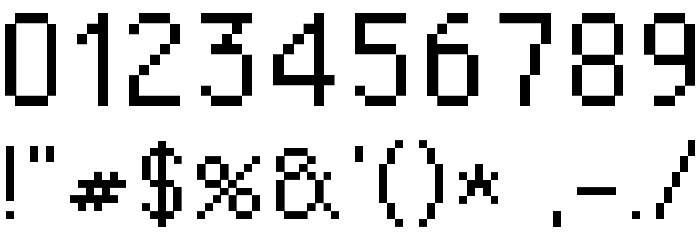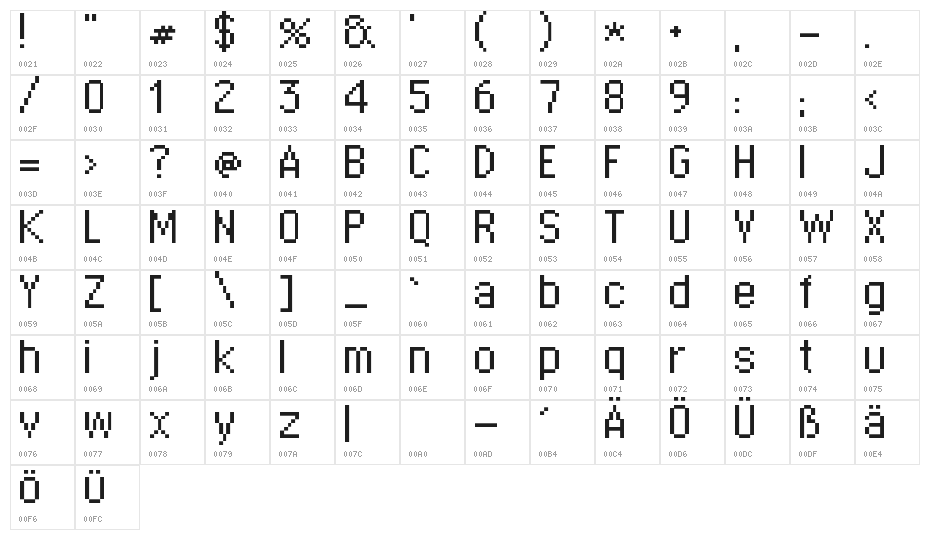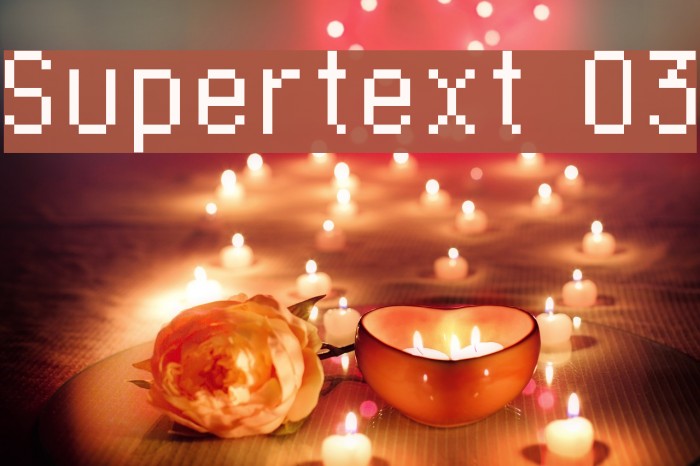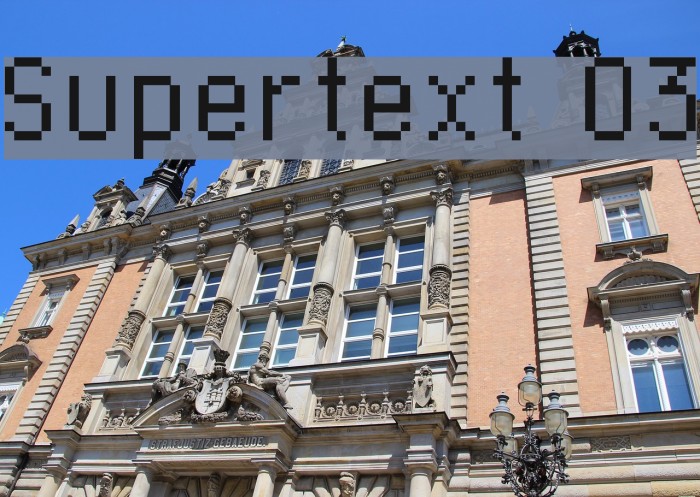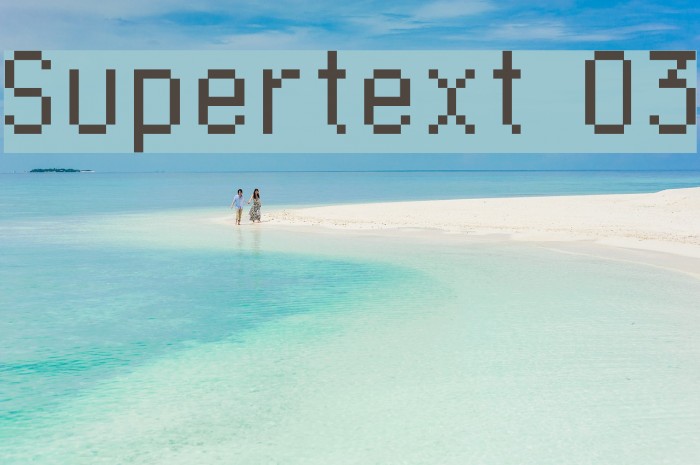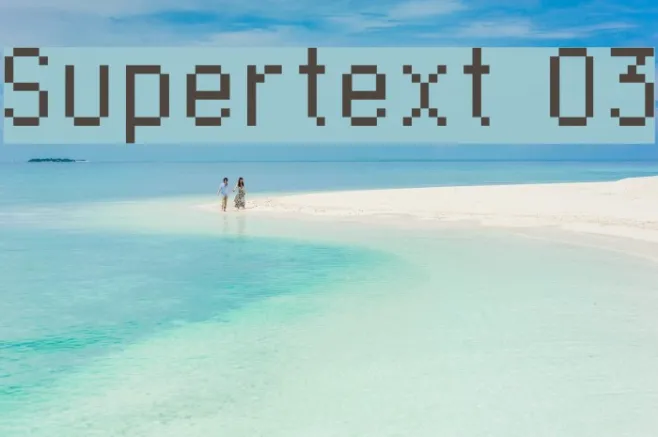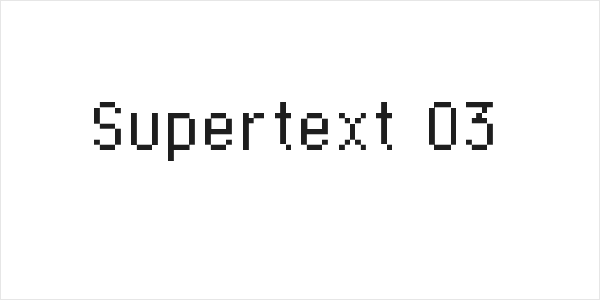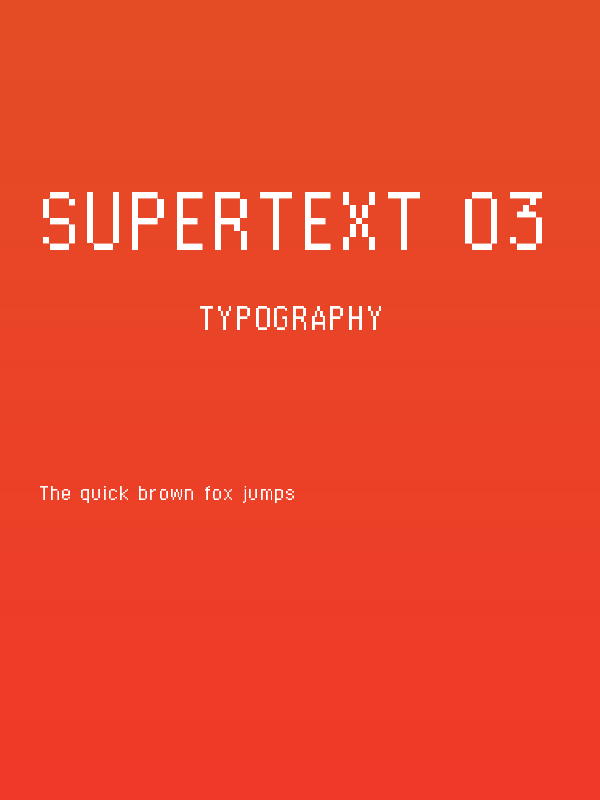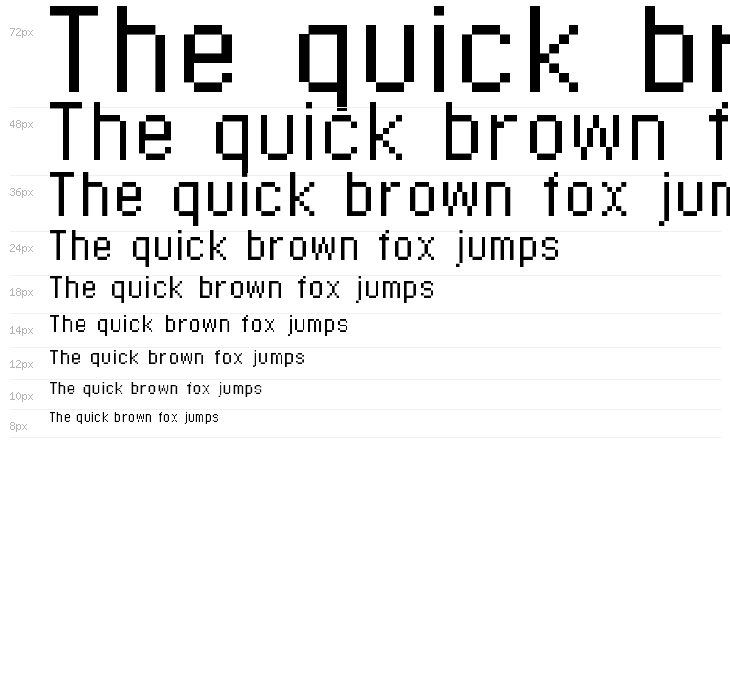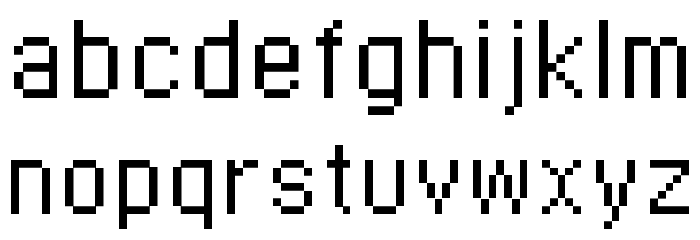
Supertext 03 Font
Supertext 03 Description
This font features a pixelated, grid-like structure reminiscent of early digital displays and retro video games. Each character is composed of square blocks, giving it a distinctly digital and geometric appearance. The uniformity in height and width across characters creates a cohesive and consistent look. The uppercase and lowercase letters maintain a similar width, enhancing readability in both large and small sizes. Numbers and special characters follow the same pixelated style, making them easily distinguishable. This font evokes a sense of nostalgia and is perfect for projects that aim to capture a vintage digital aesthetic.